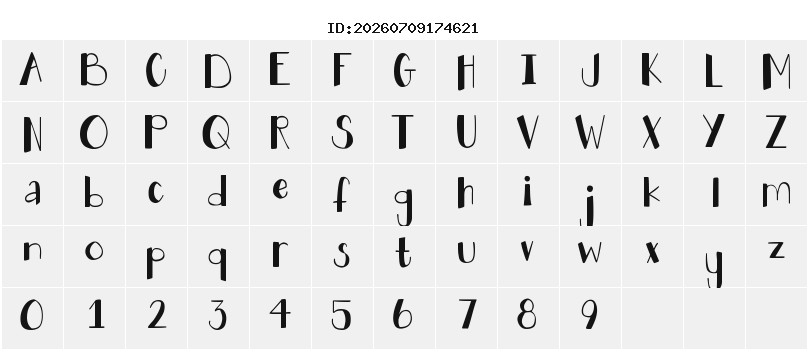
DJB Holly Jolly B'Golly Preview
• Font Name: DJB Holly Jolly B'Golly
• Full Font Name: DJB Holly Jolly B'Golly
• Version: Version 1.00 March 26, 2015, initial release
About DJB Holly Jolly B'Golly.ttf
DJB Holly Jolly B'Golly.ttf is a modern, elegant sans-serif font designed for ultimate readability and visual harmony. Perfect for branding, headlines, web design, and print materials.